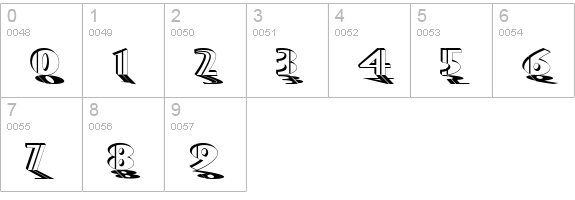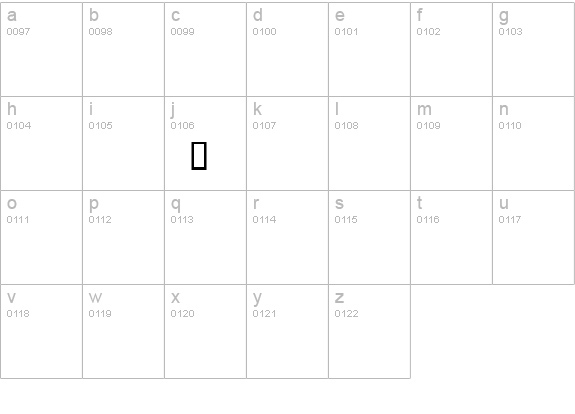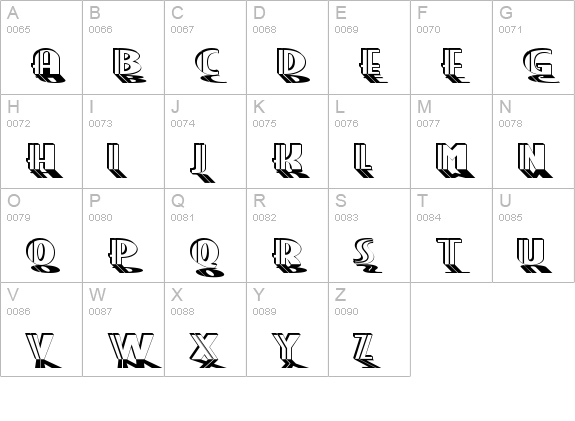
GrandPrix Spectacular Font Details
GrandPrix Spectacular font is a bold and dynamic typeface that captures the excitement and speed of a high-octane race. With its sleek lines and sharp edges, this font exudes energy and power, making it perfect for any design project that needs a touch of adrenaline. What sets GrandPrix Spectacular font apart is not just its striking appearance, but also the fact that it is available for free download on FontsMarket.com. This means that you can easily access and use this captivating font in your creations without any cost, making it a valuable addition to your font collection. Whether you're working on a sports event poster, a racing-themed website, or a logo for a speed-oriented brand, GrandPrix Spectacular font will help you convey a sense of speed and excitement with its bold and eye-catching style. Download it for free today and take your designs to the next level!